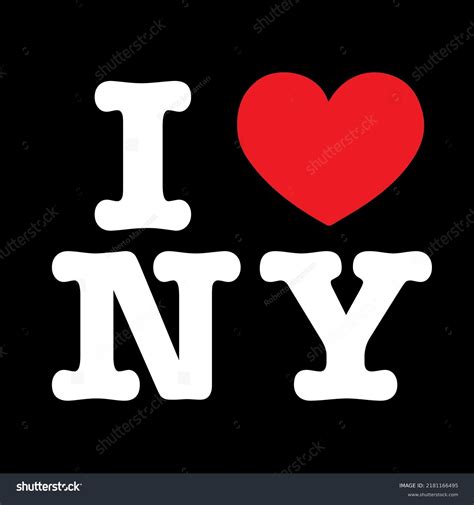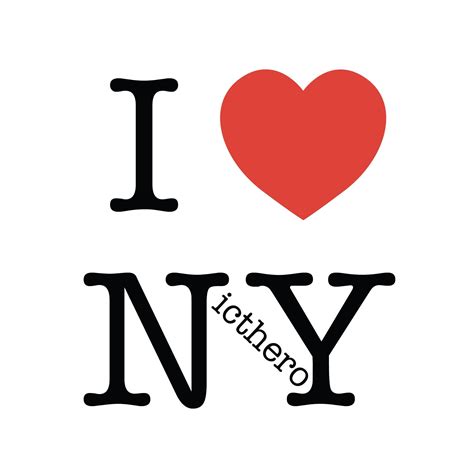
Typography plays a crucial role in graphic design, setting the tone and mood of any visual content. Among the myriad of fonts available, the I Heart Ny Font stands out as a beloved choice for many designers. This font, with its distinctive and charming style, has become a staple in various design projects, from logos and branding to social media graphics and invitations. Let's delve into the world of the I Heart Ny Font, exploring its origins, unique features, and practical applications.
Origins and Inspiration
The I Heart Ny Font is inspired by the iconic "I Love New York" logo, which was created by Milton Glaser in 1977. The original design features a stylized heart that replaces the word "love," making it instantly recognizable and emotionally resonant. The font captures the essence of this classic design, blending nostalgia with modern aesthetics.
Unique Features of I Heart Ny Font
The I Heart Ny Font is characterized by several unique features that make it stand out:
- Distinctive Heart Shape: The heart shape is the most recognizable element of the font, adding a touch of warmth and affection to any design.
- Bold and Playful: The font's bold strokes and playful design make it ideal for eye-catching headlines and logos.
- Versatile Use: Despite its distinctive style, the I Heart Ny Font can be used in a variety of contexts, from formal invitations to casual social media posts.
Applications of I Heart Ny Font
The versatility of the I Heart Ny Font makes it suitable for a wide range of applications. Here are some popular uses:
- Branding and Logos: The font's bold and memorable design makes it perfect for creating logos and branding materials that leave a lasting impression.
- Social Media Graphics: With its playful and eye-catching style, the I Heart Ny Font is ideal for social media posts, stories, and covers.
- Invitations and Greeting Cards: The font's warm and affectionate design adds a personal touch to invitations, greeting cards, and other special occasion materials.
- Posters and Flyers: The bold strokes and distinctive heart shape make the I Heart Ny Font a great choice for posters, flyers, and other promotional materials.
Design Tips for Using I Heart Ny Font
To make the most of the I Heart Ny Font, consider the following design tips:
- Pairing with Other Fonts: The I Heart Ny Font pairs well with simple, clean fonts. For example, pairing it with a sans-serif font can create a balanced and modern look.
- Color Schemes: Choose color schemes that complement the warm and affectionate tone of the font. Soft pastels, bright primary colors, and metallic accents can all work well.
- Size and Placement: Use the font in larger sizes for headlines and key messages. For body text, consider using a complementary font to ensure readability.
Popular Alternatives to I Heart Ny Font
While the I Heart Ny Font is a popular choice, there are several alternatives that offer similar styles and aesthetics. Here are a few options to consider:
| Font Name | Description |
|---|---|
| Love Ya Font | A playful and romantic font with a heart-shaped design, similar to the I Heart Ny Font. |
| Heart Love Font | This font features a heart-shaped design with a modern twist, making it ideal for contemporary designs. |
| Love Heart Font | A versatile font with a heart-shaped design, suitable for a variety of applications, from logos to invitations. |